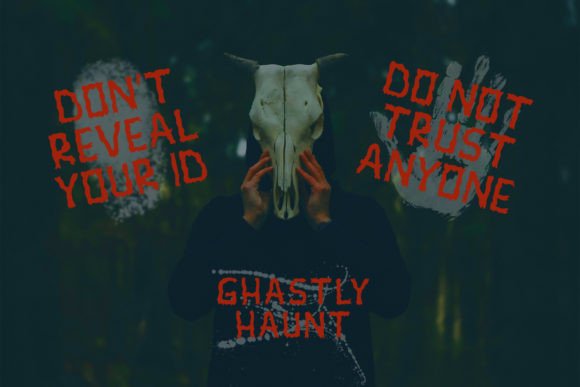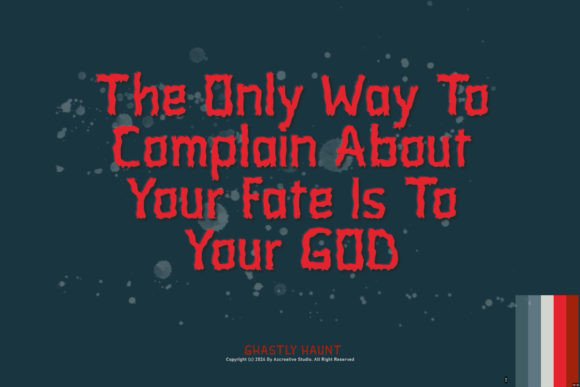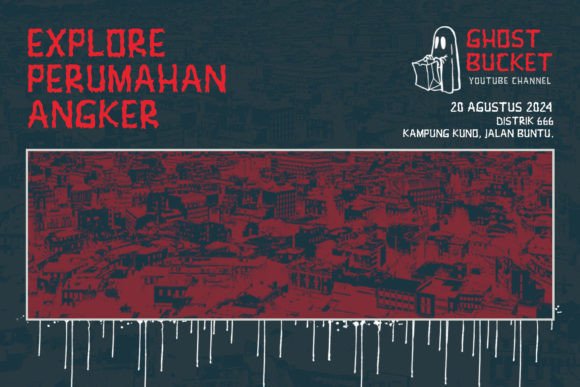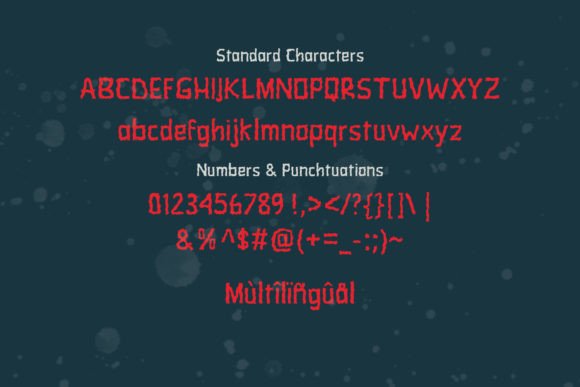
Ghastly Haunt Font: The Ultimate Choice for Spooky Designs
Are you a designer or crafter looking for the perfect font to add a spooky touch to your horror and Halloween-themed designs? Look no further than Ghastly Haunt, a unique and bold font inspired by eerie and unsettling forms. In this article, we’ll explore the features and benefits of Ghastly Haunt, and why it’s the ultimate choice for all your spooky design needs.
What is Ghastly Haunt Font?
Ghastly Haunt is a carefully crafted font designed to deliver a chilling and eerie feel to your designs. Inspired by the darker side of life, this font features unique and bold characters in both uppercase and lowercase, perfect for creating eye-catching and memorable designs. Whether you’re working on a horror movie poster, Halloween party invitation, or merchandise design, Ghastly Haunt is the perfect choice.
Key Features of Ghastly Haunt Font
- Unique and Bold Characters: Ghastly Haunt features one-of-a-kind characters that will add a touch of horror and mystery to your designs.
- Uppercase and Lowercase Letters: The font includes both uppercase and lowercase letters, making it versatile for various design projects.
- Eerie and Unsettling Inspiration: The font’s design is inspired by eerie and unsettling forms, ensuring that your designs will have a spooky and haunting feel.
- Perfect for Horror and Halloween Themes: Ghastly Haunt is specifically designed for horror and Halloween-themed designs, making it the ultimate choice for designers and crafters.
Benefits of Using Ghastly Haunt Font
So, why choose Ghastly Haunt for your spooky designs? Here are just a few benefits of using this amazing font:
- Adds a Spooky Touch: Ghastly Haunt adds a unique and eerie touch to your designs, making them stand out from the crowd.
- Increases Engagement: The bold and eye-catching characters in Ghastly Haunt are sure to grab attention and increase engagement with your audience.
- Versatile: The font’s versatility makes it perfect for various design projects, from horror movie posters to Halloween party invitations.
Design Ideas Using Ghastly Haunt Font
Now that you know more about Ghastly Haunt, let’s explore some design ideas to get you started:
- Horror Movie Posters: Use Ghastly Haunt to create eye-catching and terrifying horror movie posters that will leave audiences shivering.
- Halloween Party Invitations: Add a spooky touch to your Halloween party invitations with Ghastly Haunt, and make sure your guests are in for a treat.
- Merchandise Designs: Use Ghastly Haunt to create creepy and unique merchandise designs, such as t-shirts, mugs, and more.
- Social Media Graphics: Add a touch of horror to your social media graphics with Ghastly Haunt, and make sure your posts stand out from the crowd.
In conclusion, Ghastly Haunt is the ultimate font for all your horror and Halloween-themed designs. With its unique and bold characters, eerie inspiration, and versatility, Ghastly Haunt is perfect for designers and crafters looking to add a spooky touch to their projects. Whether you’re working on a horror movie poster, Halloween party invitation, or merchandise design, Ghastly Haunt is the perfect choice. So, why wait? Download Ghastly Haunt today and start creating spooky and memorable designs!